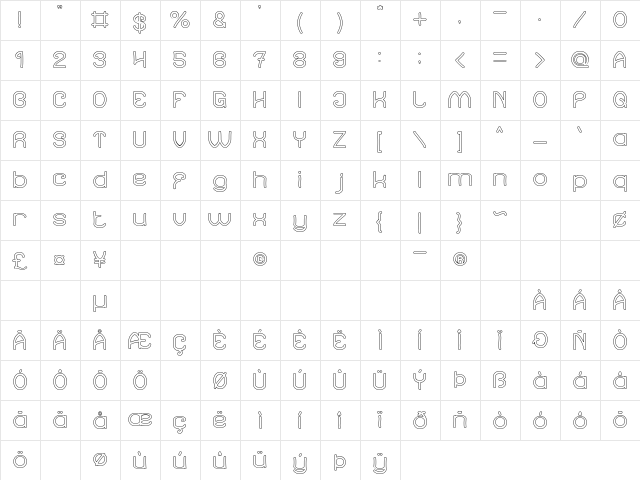
Soup Recipe-Hollow Regular Font Preview
Soup Recipe-Hollow Regular
Soup Recipe-Hollow Regular Font Details
Design Context for Soup Recipe-Hollow Typeface
Soup Recipe-Hollow offers clean, dependable letterforms without strong stylistic allegiance, making it a practical choice for designers who need flexibility.
Pro Tip: Use Soup Recipe-Hollow in both headline and body roles to test its range before committing to a single application.